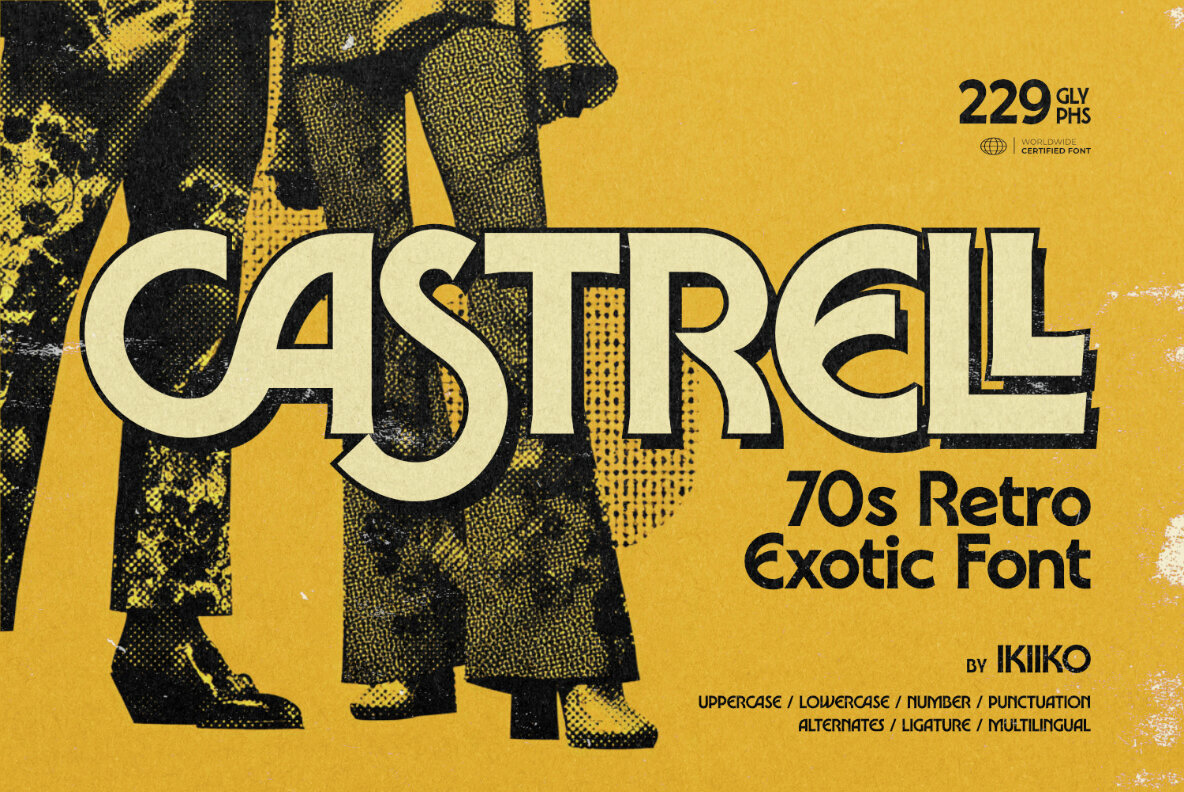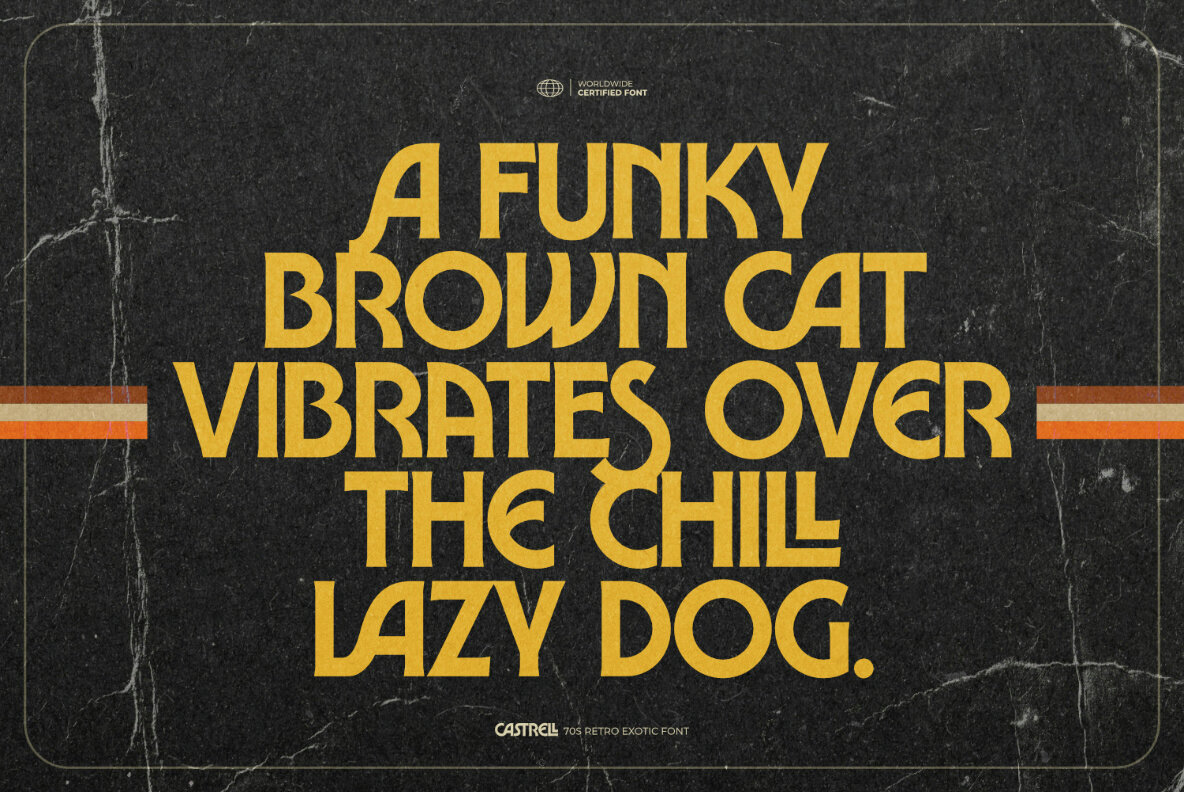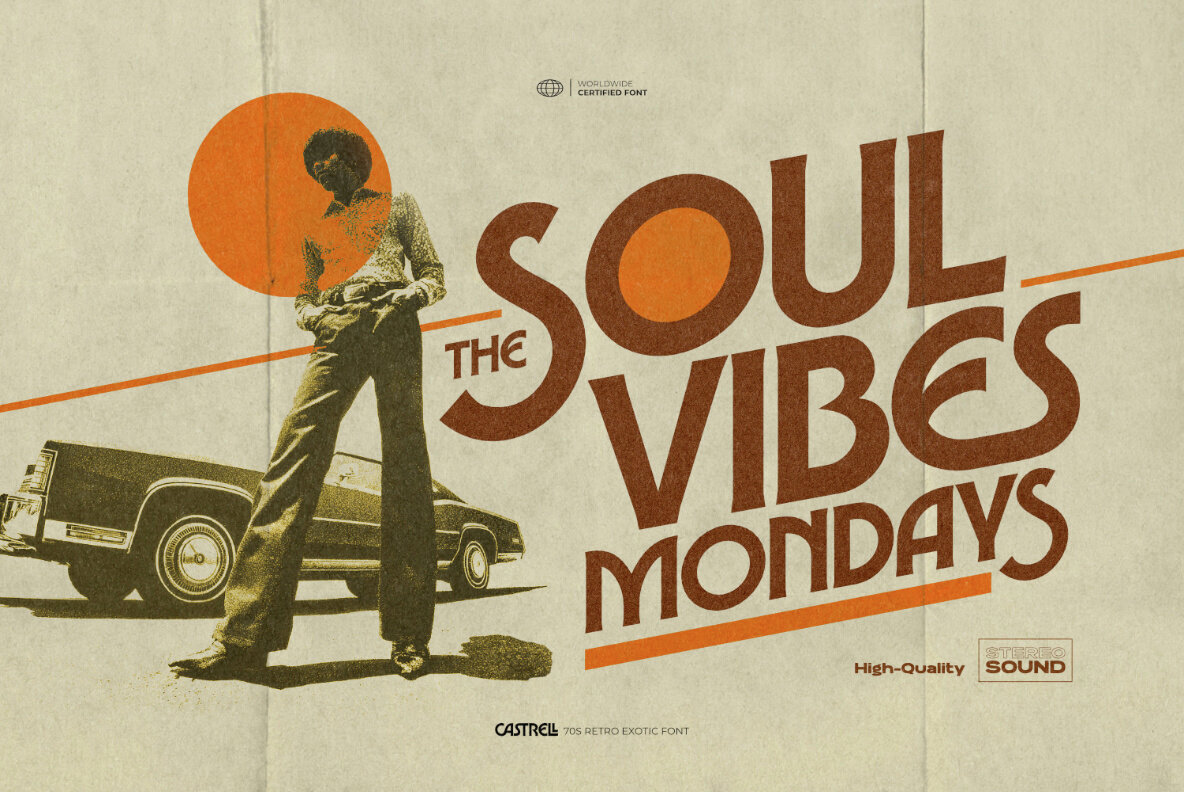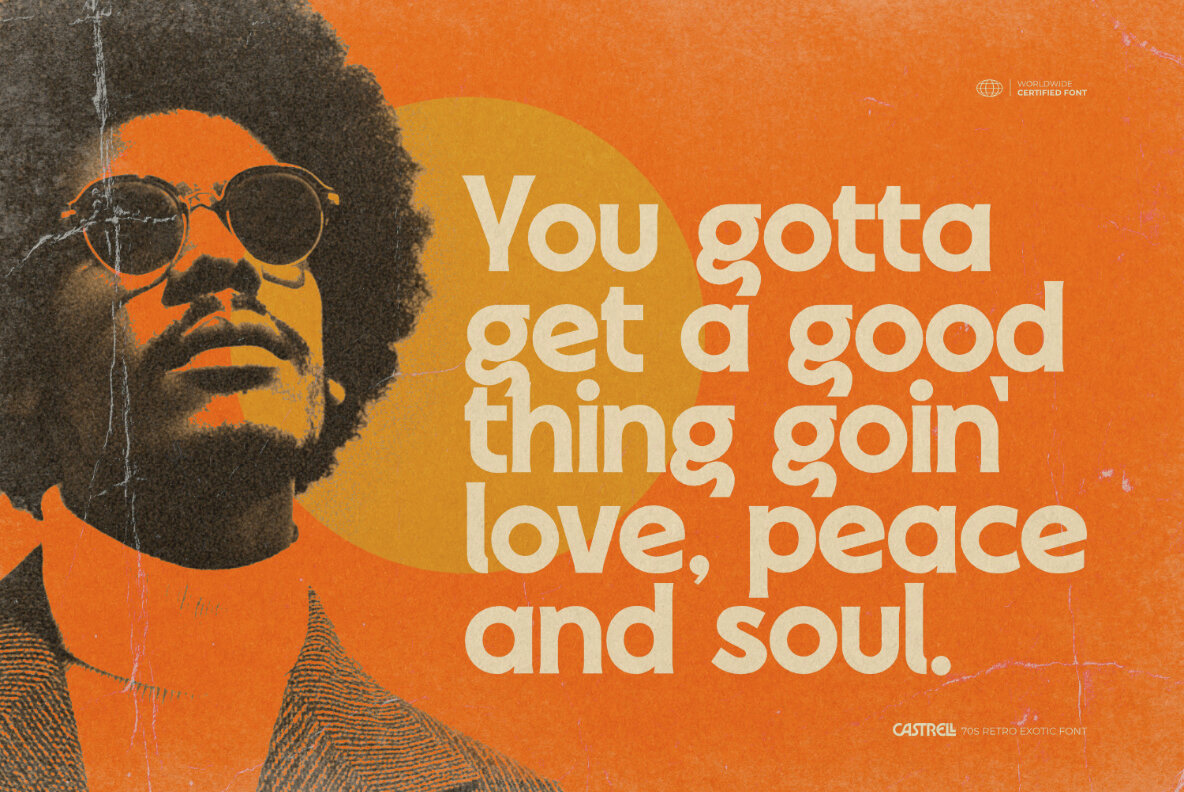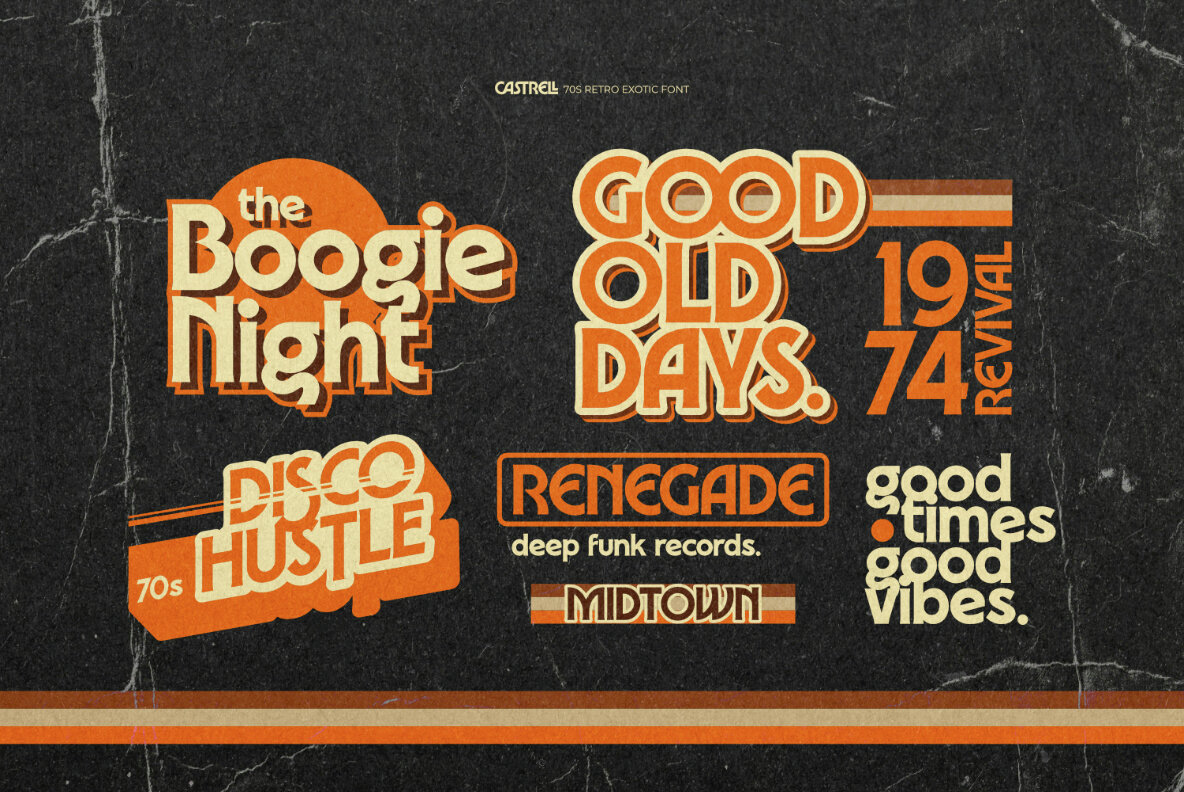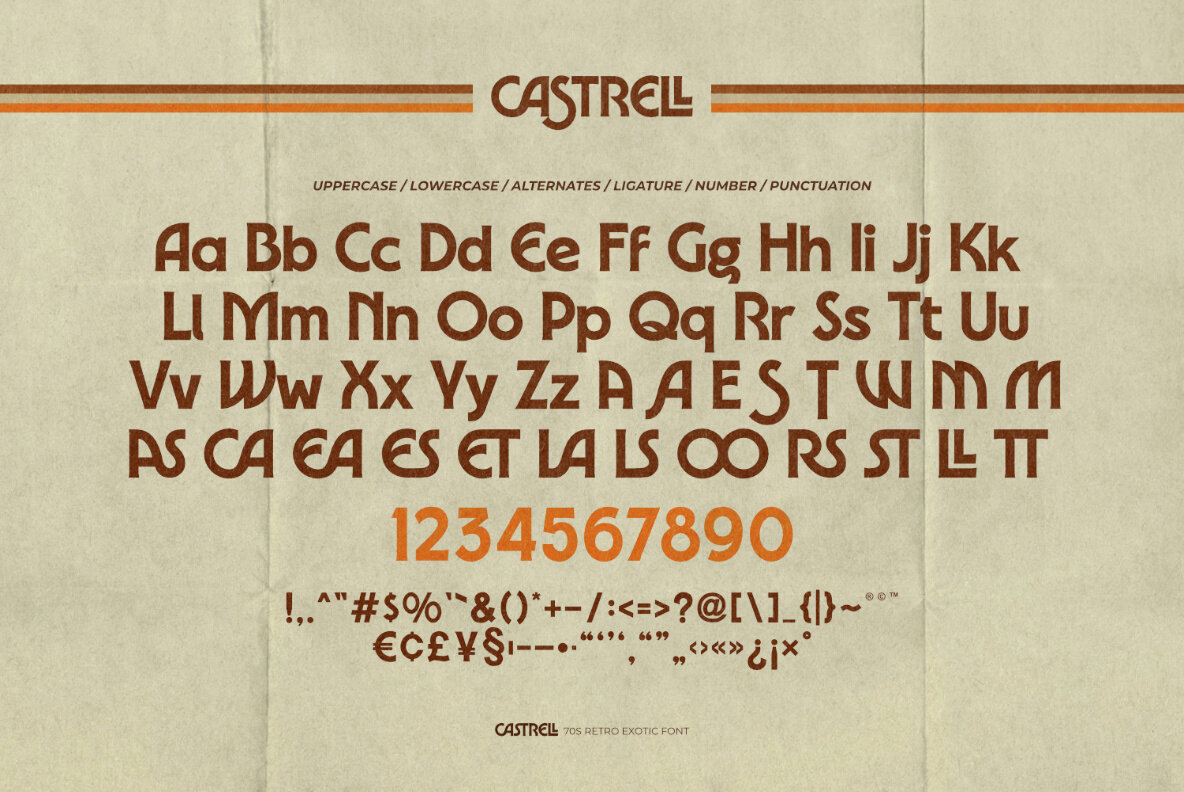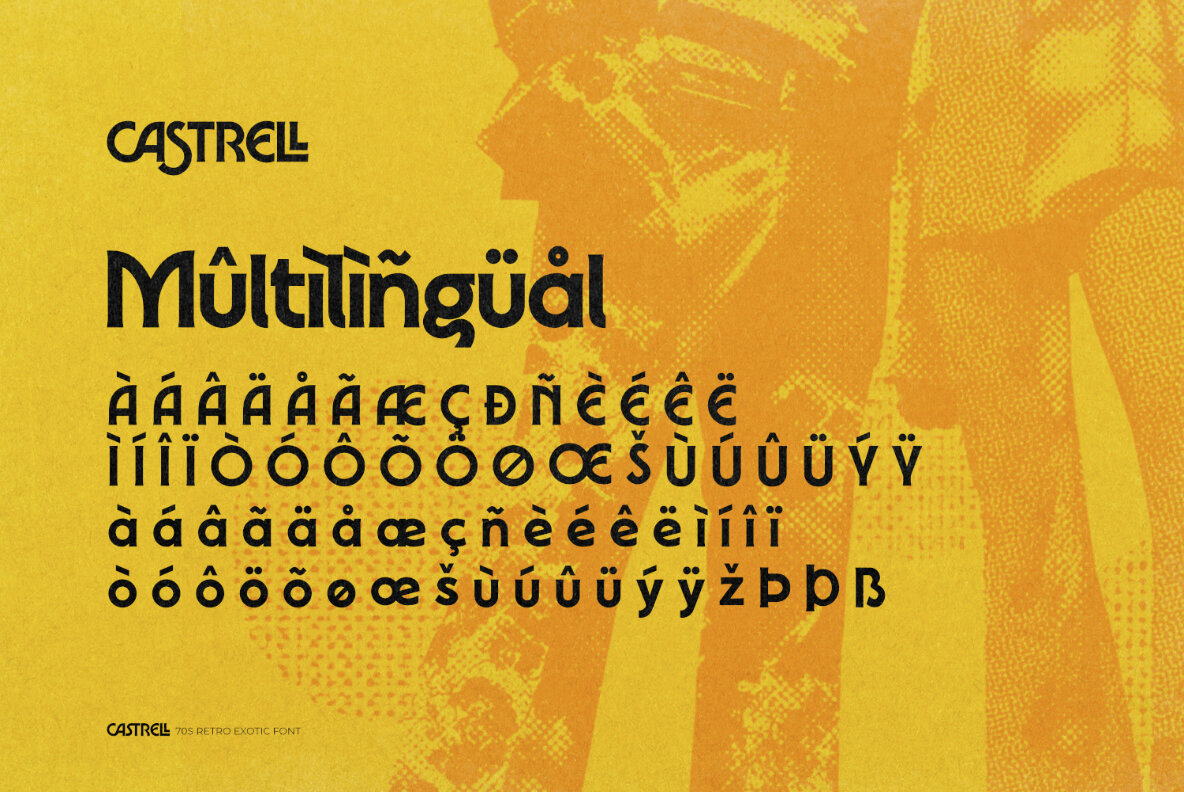
Castrell Font
Castrell
Castrell captures the essence of the 1970s, channeling retro soul and funk with every character. Inspired by iconic disco posters, Afro-funk aesthetics, and classic retro cinema, this typeface moves with bold energy and timeless style. Its smooth curves and expressive forms evoke an authentic vintage atmosphere, bringing rhythm and personality to any creative project. Designed for clarity and impact, Castrell thrives in projects that celebrate nostalgia—movie titles, throwback logos, or vibrant poster artwork. Each glyph radiates charisma, adding an unmistakable groove to fashion branding and apparel rooted in vintage flair. The font’s robust presence and subtle detailing ensure lasting appeal, making it a go-to choice for designs with a soulful, funky touch.Castrell – 70s Retro Exotic Font